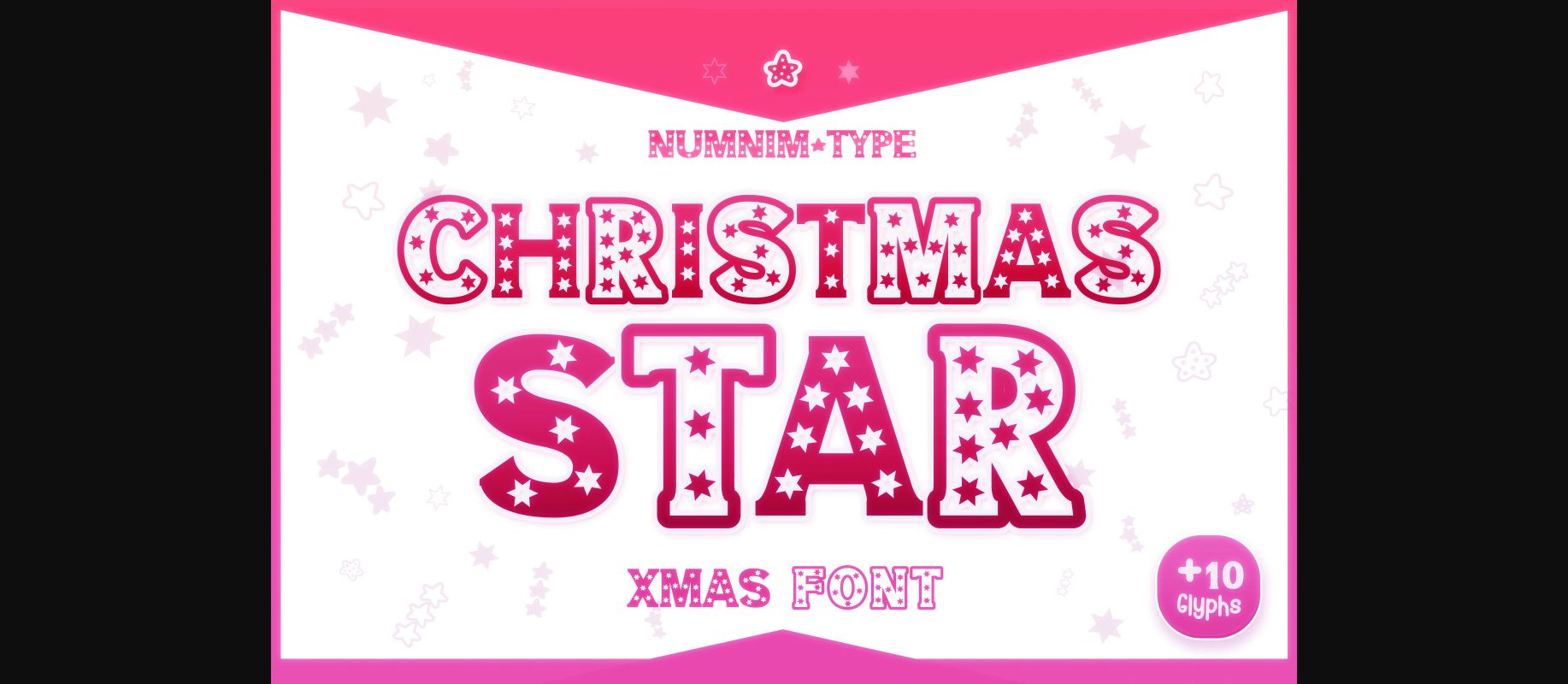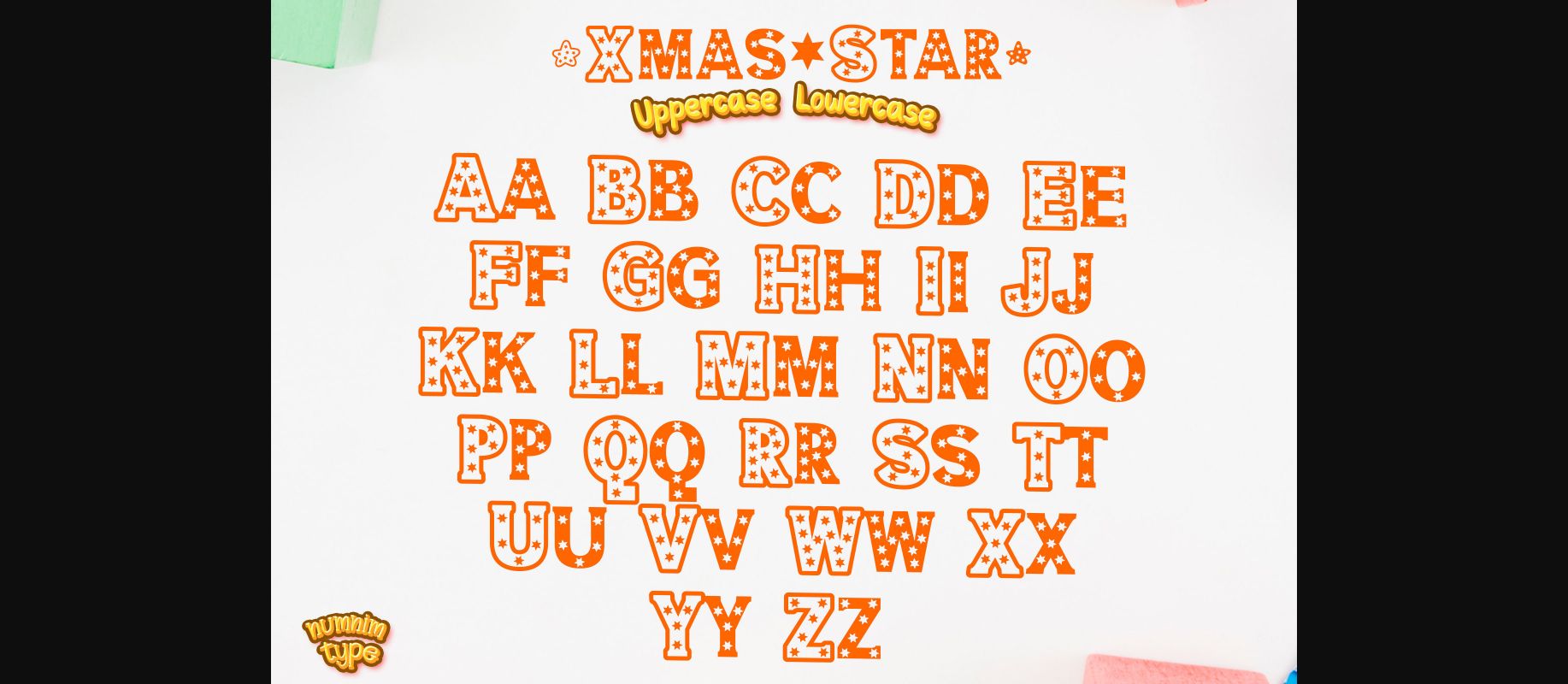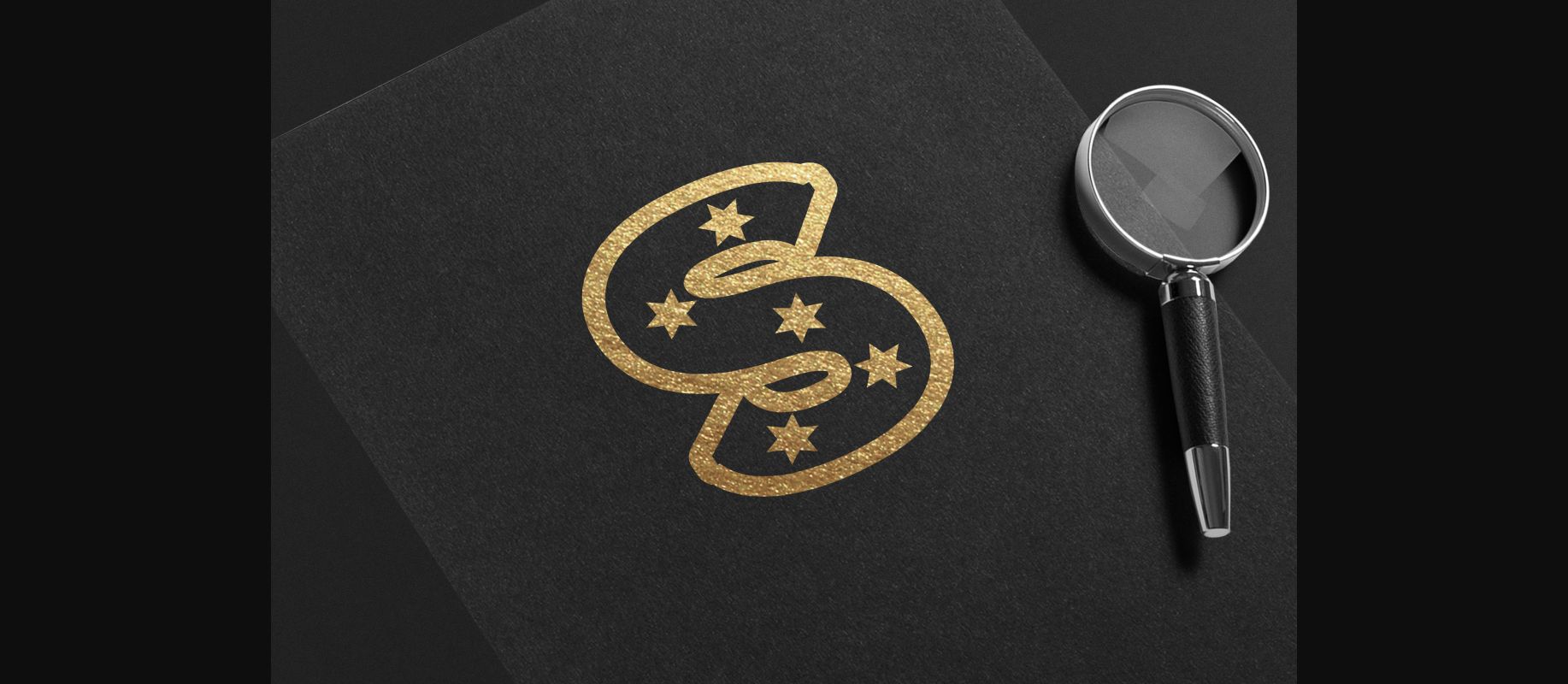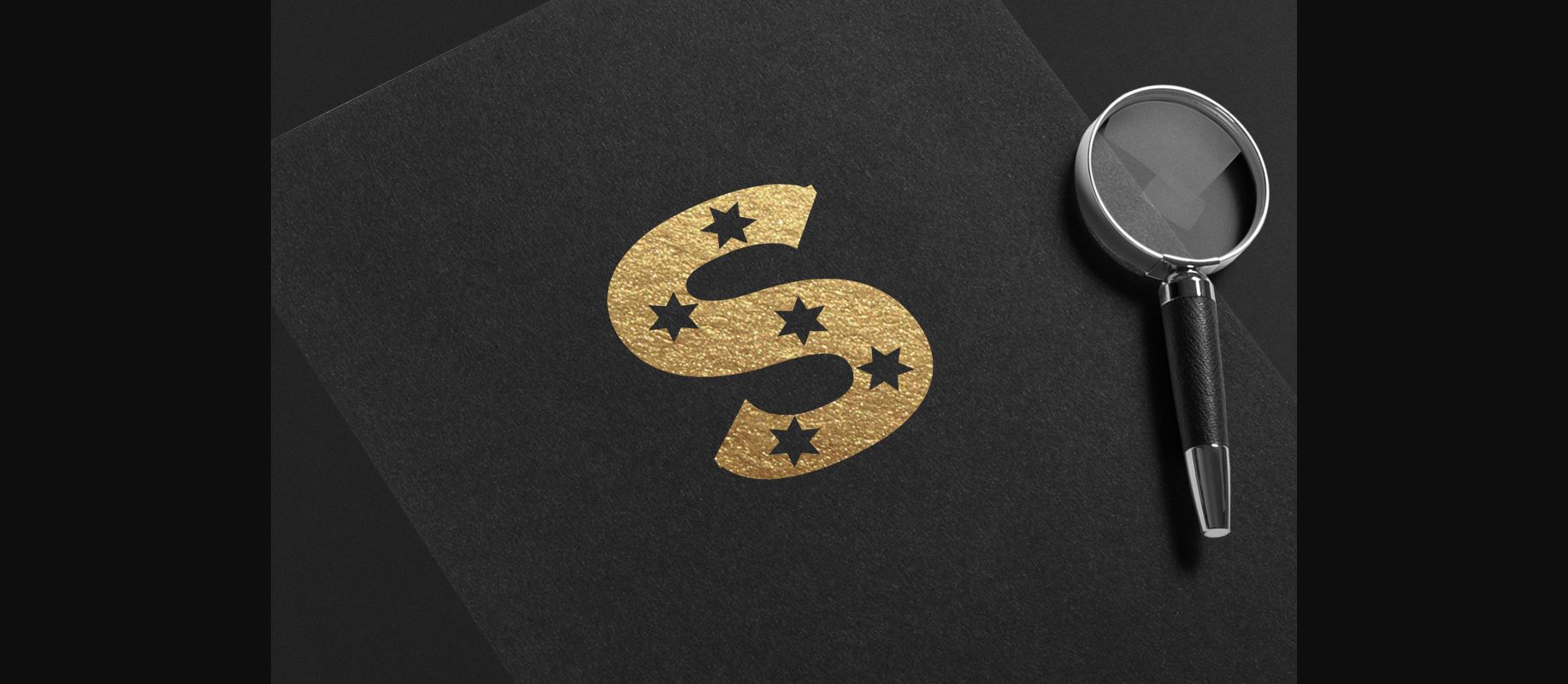
About Christmas Star Font
Christmas Star is a cool star lettered decorative font, this font will truly inspire each of your works. Use this font for any crafting project that requires a personalized vintage look!